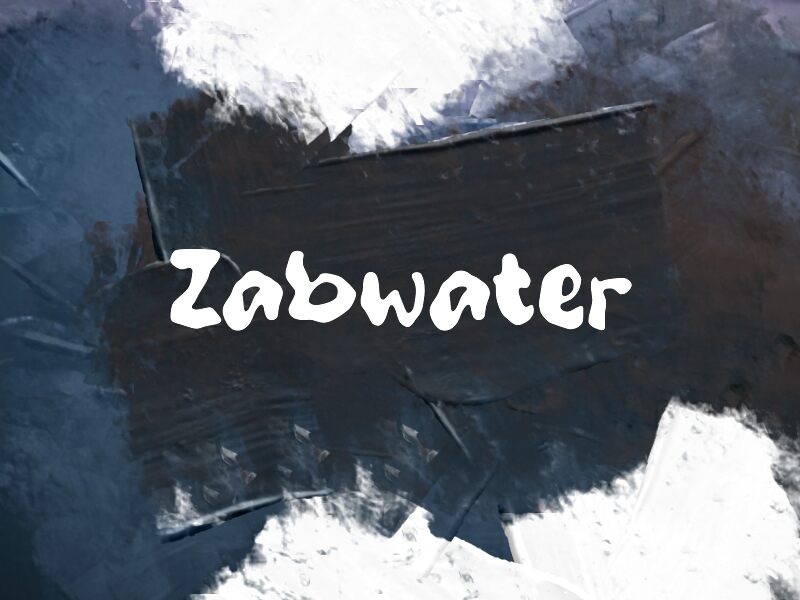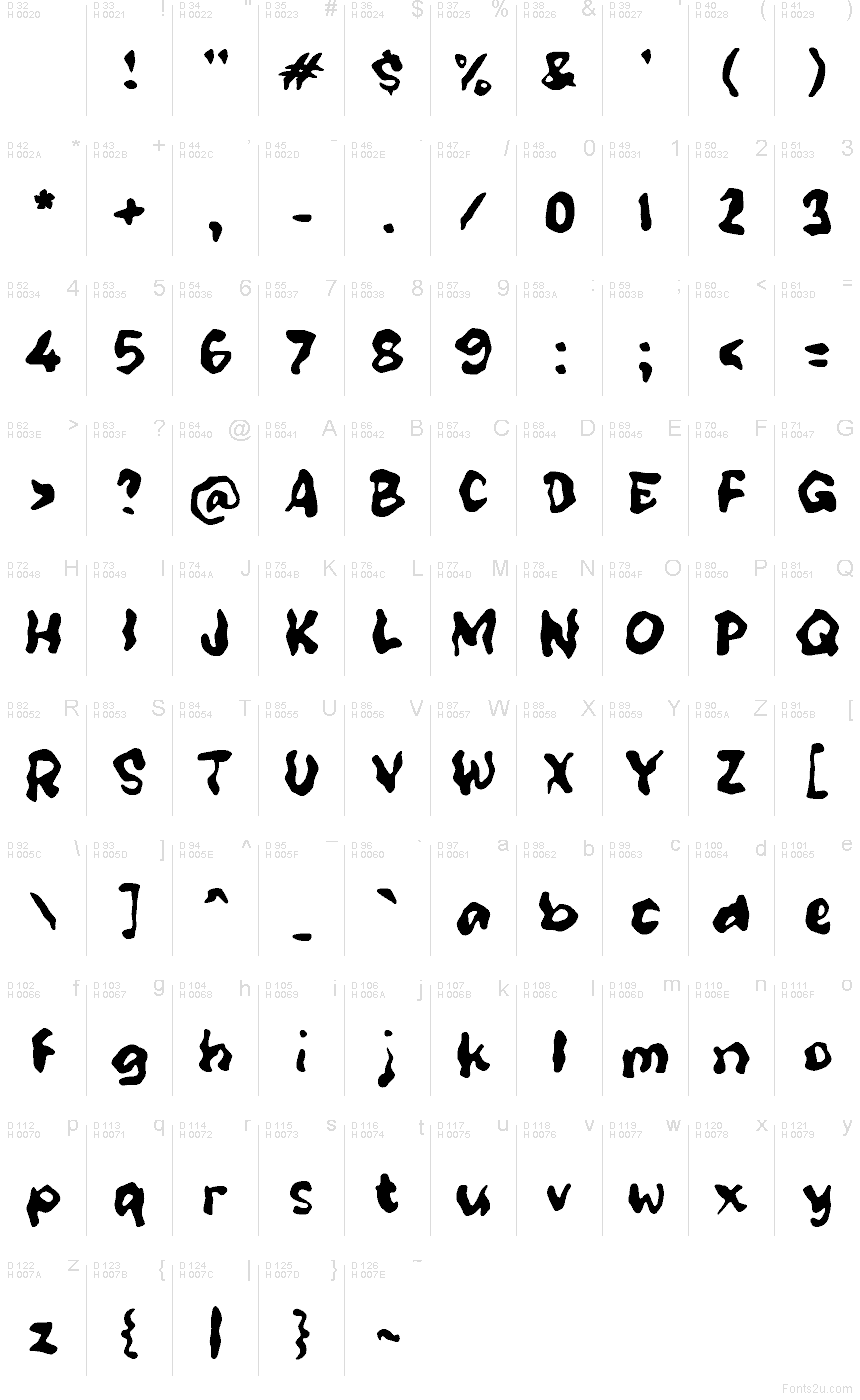
Zabwater font by wepfont.com is a free distorted display typeface that looks like it’s been splashed, smudged, and left to drip dry. The letters feel inky and liquid, with blobby contours and uneven shapes that give every word a slasher-flick energy. It’s messy in a deliberate way, creating a hand-drawn, wet-paint vibe that instantly pushes designs toward grunge, horror, or underground DIY culture.
Using Zabwater, headlines feel loud and unstable, like they’re about to slide off the page. This free font shines on horror posters, Halloween branding, gig flyers, zines, skate graphics, album covers, and bold social graphics where chaos is the point. To keep it readable, use Zabwater big and pair it with a simple, clean sans serif for body text so the wild shapes can do the talking.